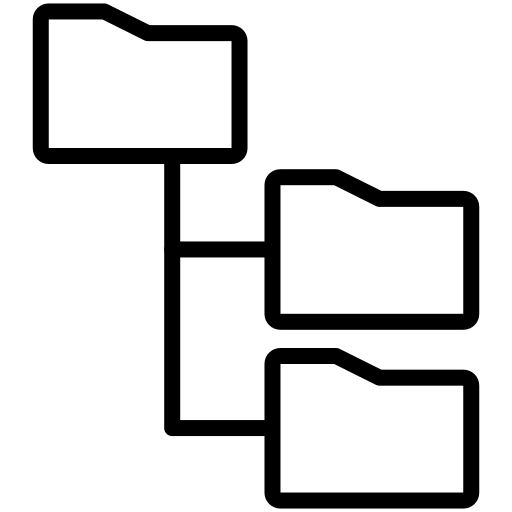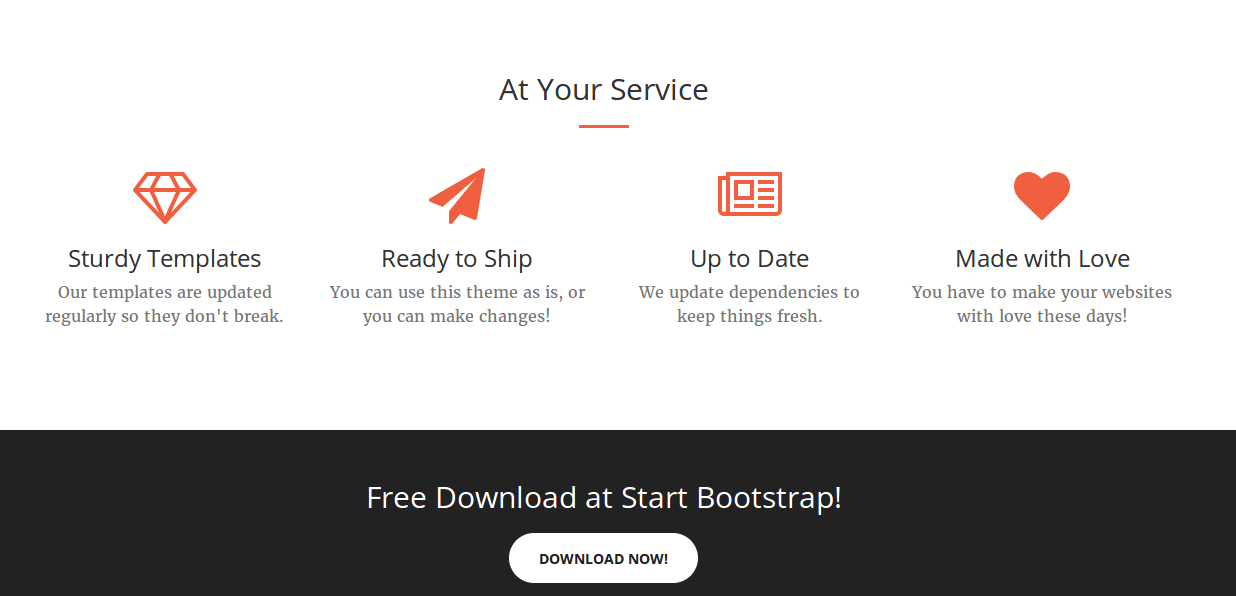
Font Awesome Folder Structure
Font Awesome, The Iconic Font And Css Framework.
Solid, Regular, Light, Thin, And Duotone Styles For Each Icon + Brands.